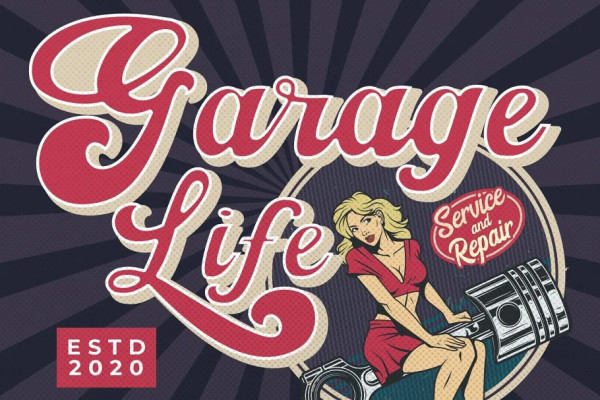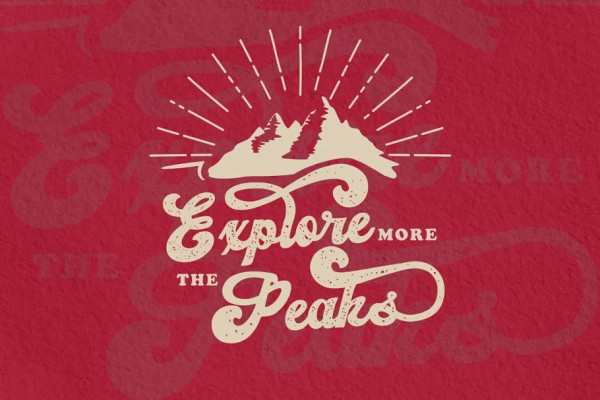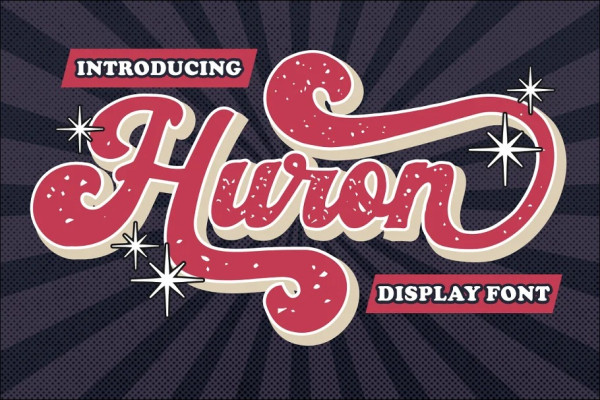
Huron Retro Font
Huron Retro Font – Retro Display Font is a captivating font that brings back the charm of retro typography with a bold and groovy vintage style. This font, designed with a script feel, offers a playful and nostalgic touch to your designs. With its numerous alternative characters, you have the creative freedom to experiment and customize your text. It comes in two versions: clean and rough/texture, providing flexibility and options for various design projects. HuronRetro Font is the perfect choice for creating logos, retro posters, book titles, magazine covers, branding materials, stickers, and any project that embraces a retro or automotive style.
With its retro and vintage-inspired style, Huron transports your designs to the bygone era, evoking a sense of nostalgia and bringing back the essence of classic typography. The bold and groovy appearance adds a touch of vibrancy and personality to your text, making it stand out and grab attention. Whether you choose the clean version for a polished and modern look or the rough/texture version for an authentic and aged effect, Huron ensures that your designs exude retro flair and timeless appeal.
With Huron Retro Font – Retro Display Font, your design projects will be imbued with the nostalgia and charm of retro typography. Its bold and groovy vintage style, along with the clean and rough versions, allows you to tailor your designs to fit any retro or automotive theme. Whether you’re creating a logo for a classic car business, designing a retro poster, or crafting a vintage-inspired magazine cover, Huron will elevate your designs with its unique and retro appeal, making them truly stand out in any application.